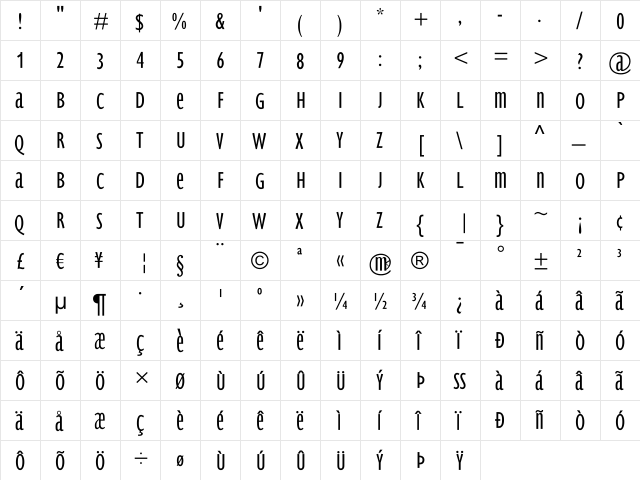
BradburySans-Light Regular
Design Context for BradburySans-Light Typeface
BradburySans-Light offers clean, dependable letterforms without strong stylistic allegiance, making it a practical choice for designers who need flexibility. The delicate stroke weight brings airiness and refinement to layouts.